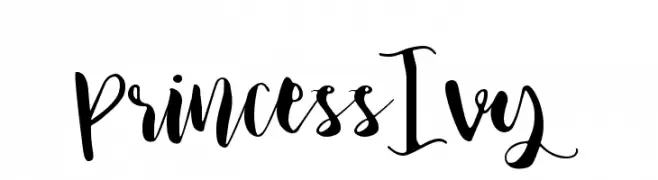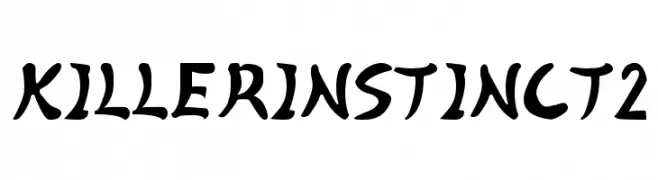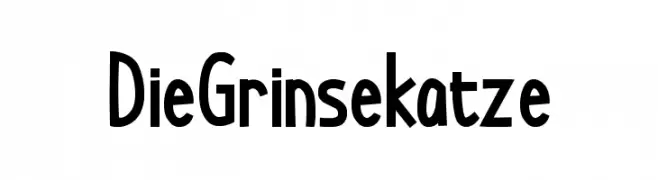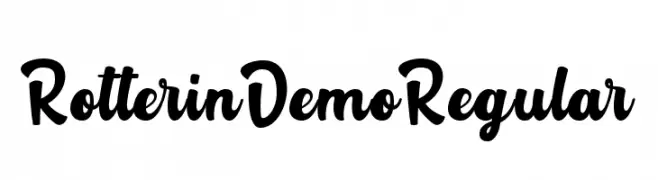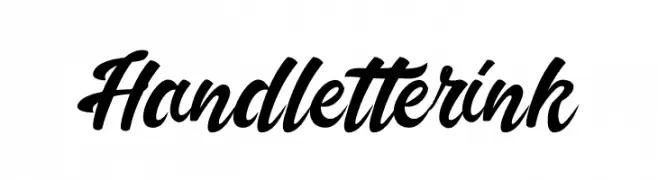
A whimsical and elegant script font with flowing, cursive letters and playful flourishes.
A bold, handwritten font with a playful, brush-like texture.
A bold, brush-style font with an expressive and dynamic appearance.
A bold, dynamic font with sharp angles and smooth curves, perfect for impactful designs.
An elegant script font with flowing, cursive strokes and refined details.
A playful, hand-drawn font with bold, irregular letterforms.
A bold, expressive script font with smooth curves and dynamic swashes.
A bold, cursive font with fluid, interconnected strokes.
A graceful script font with flowing, cursive letters and elegant loops.
A bold, brushstroke font with a dynamic and textured appearance.